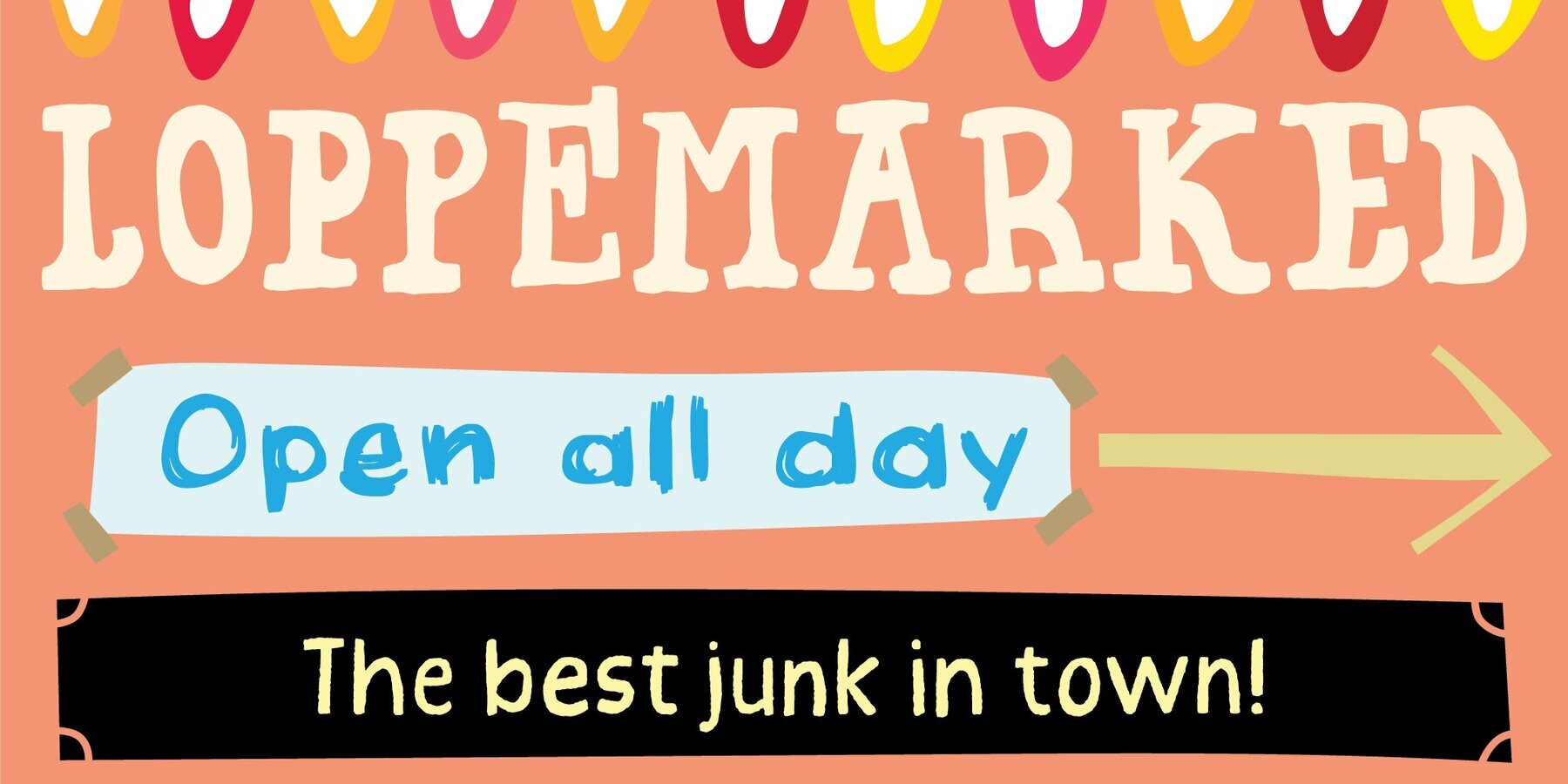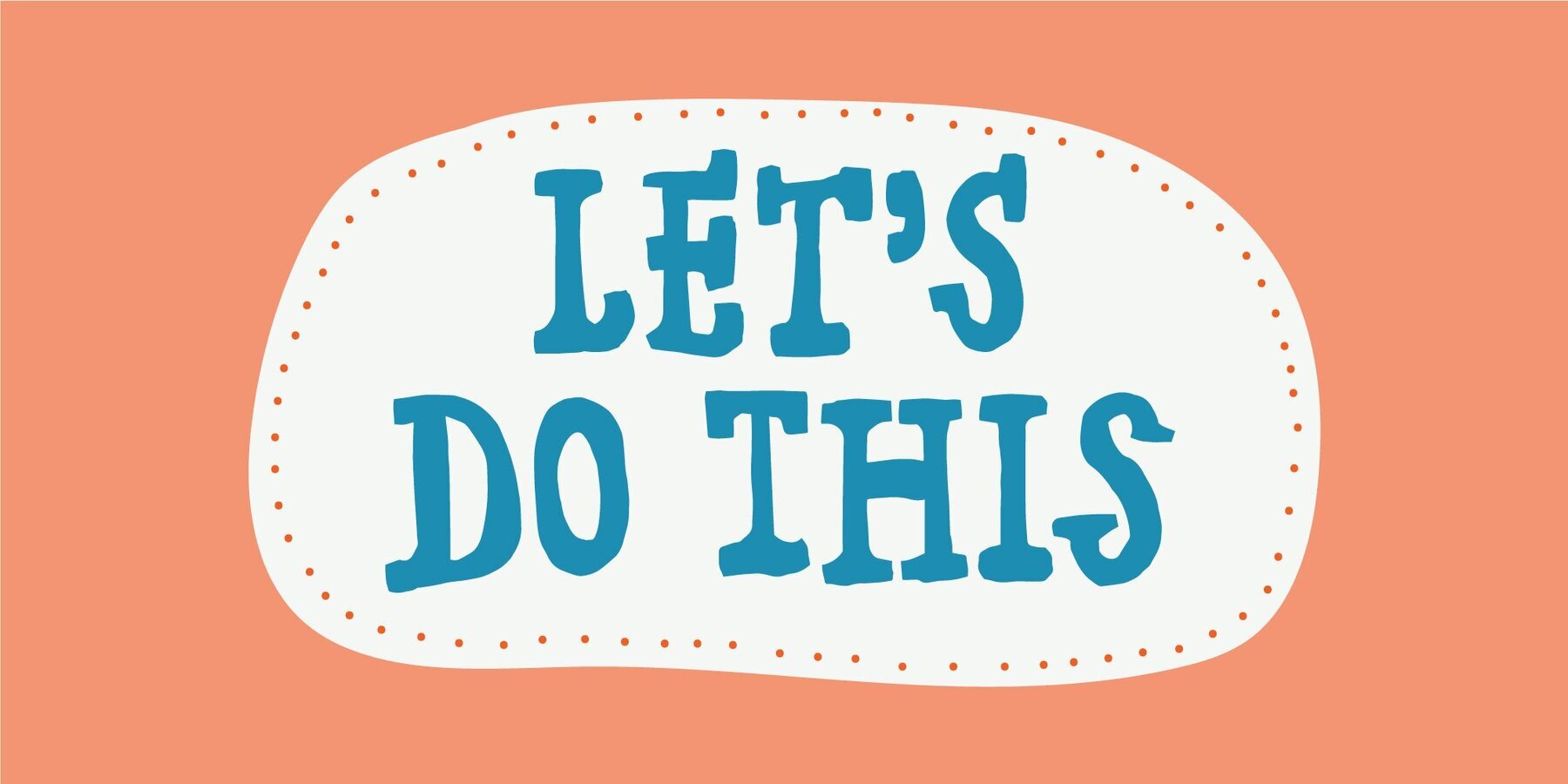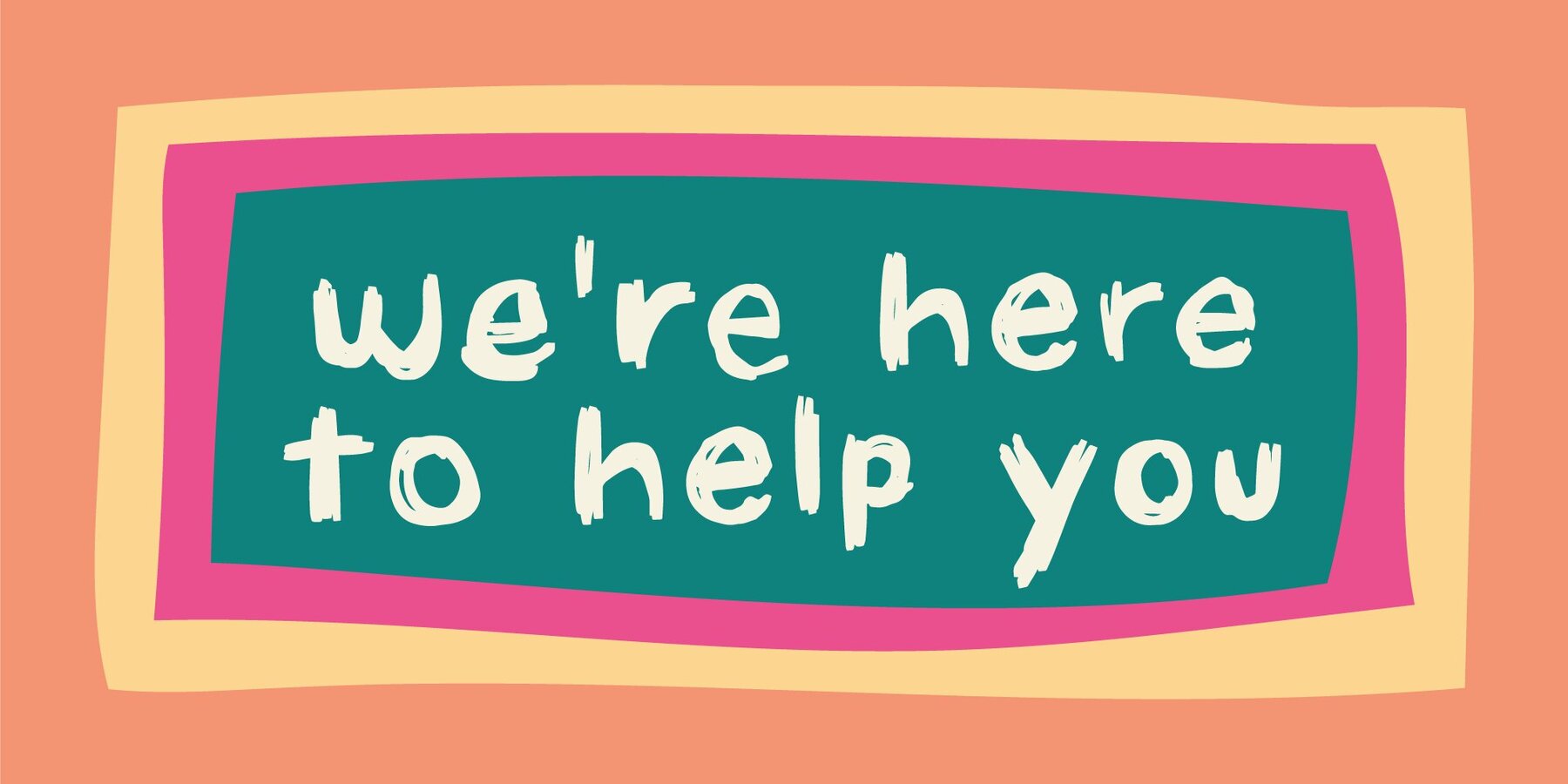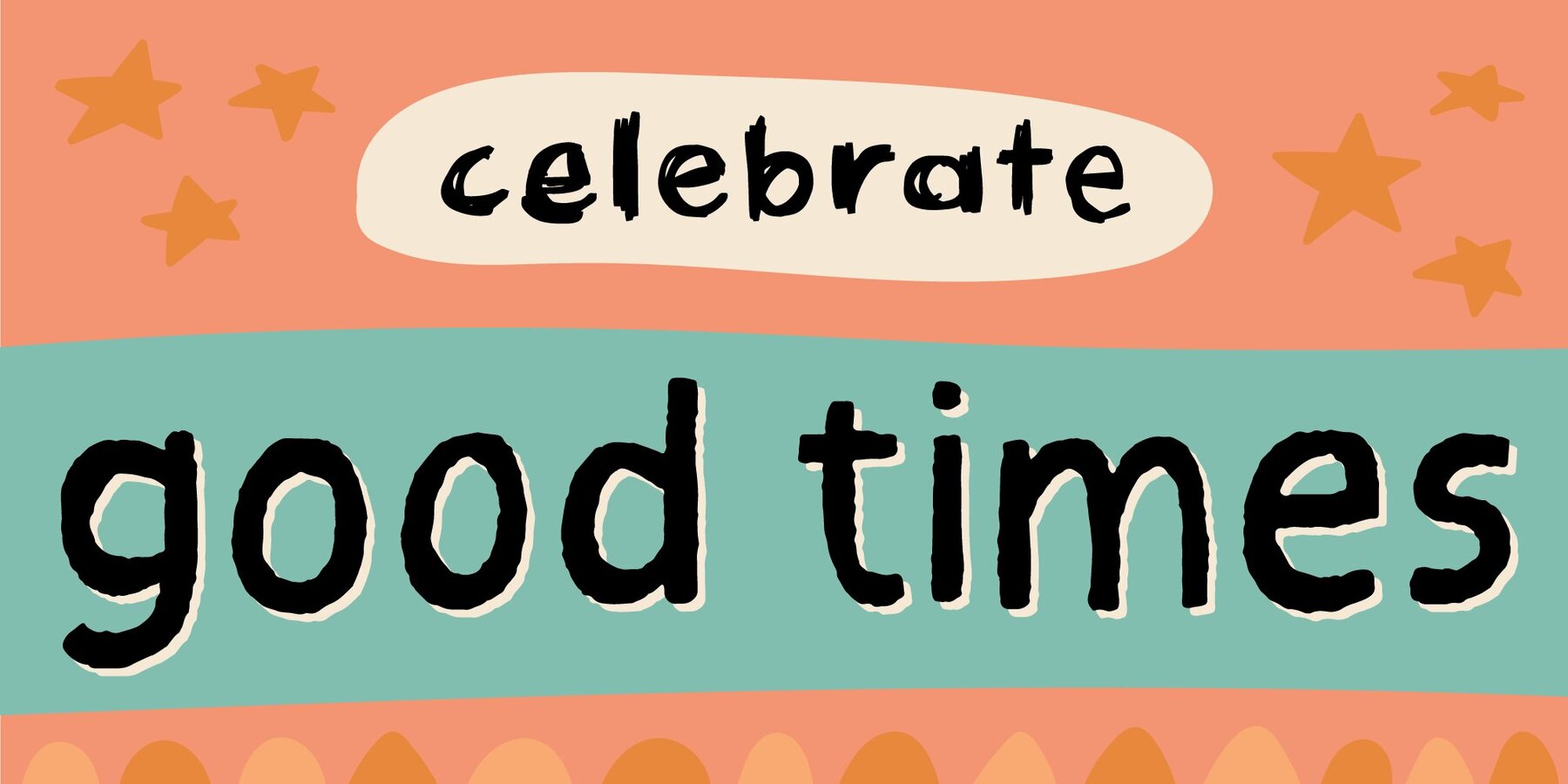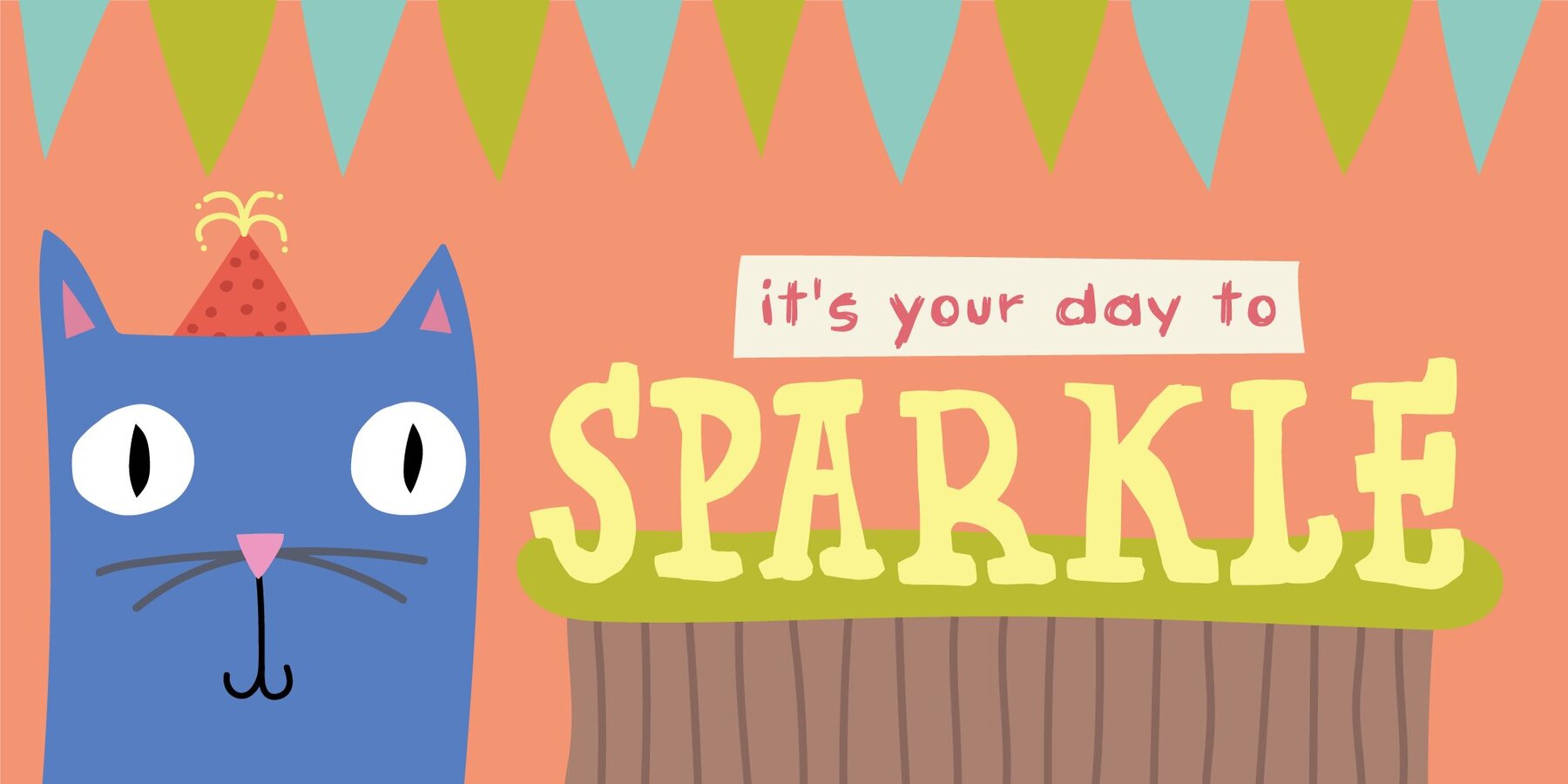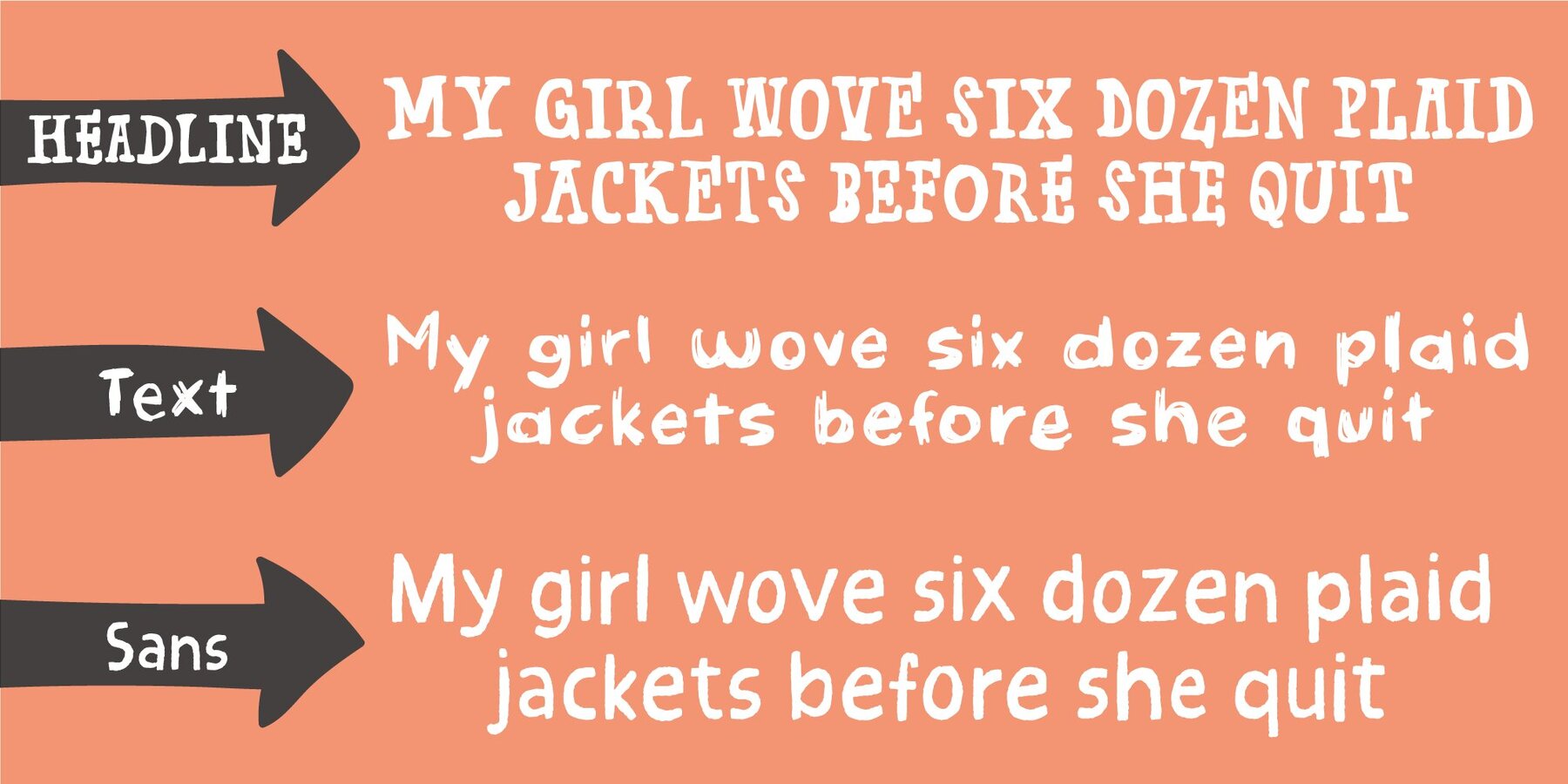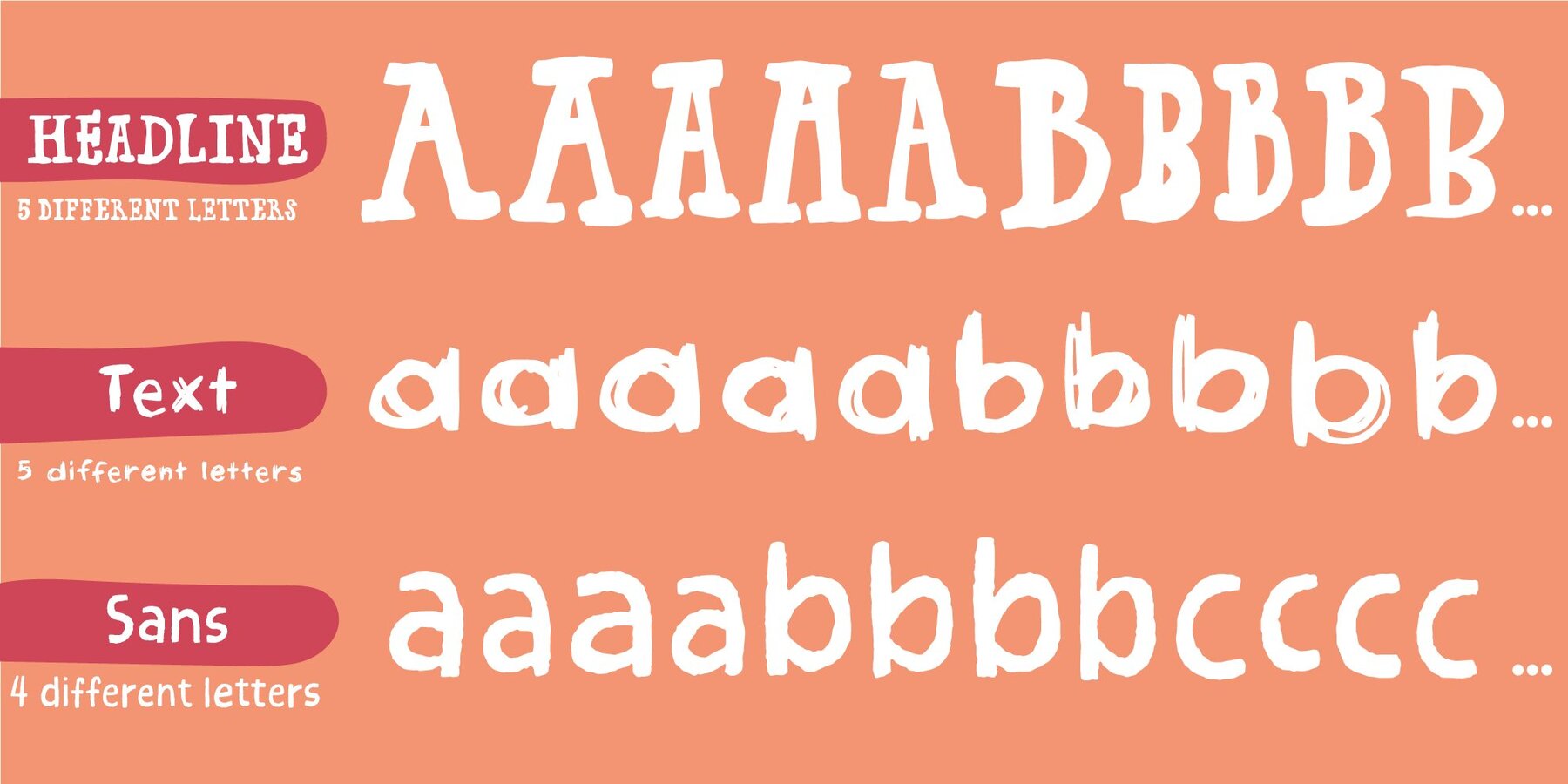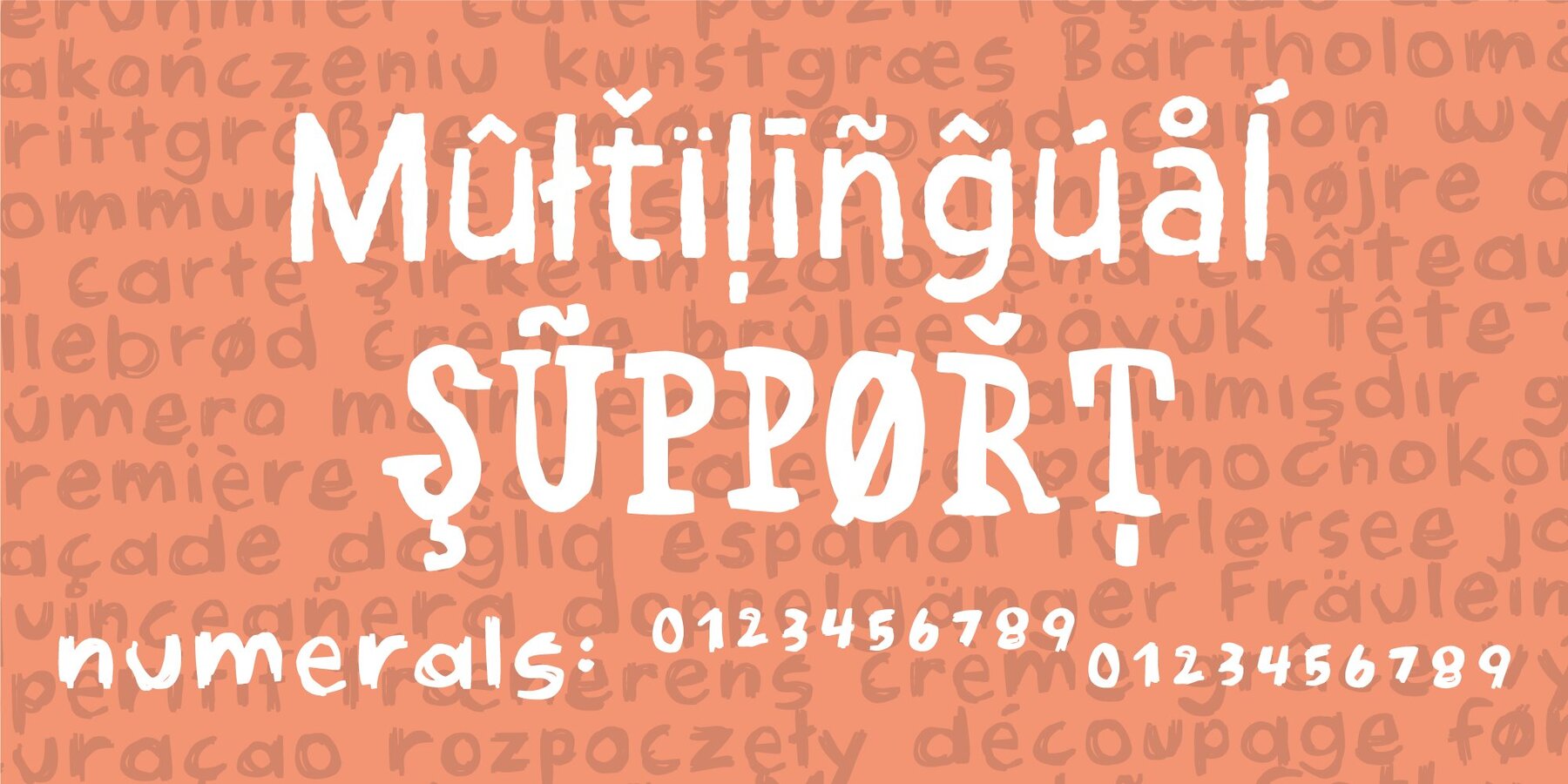
Loppemarked Font
More than just an aesthetically pleasing font, Loppemarked provides its own distinctive voice through scribbled, quick letters that pop with individuality. Its characteristic features evoke dynamism and creativity, making this font an essential resource for graphic designers and marketing firms. Effortlessly embodying distinctive details and perfect for a variety of applications, Loppemarked is more than a font, it's a tool for crafting stand-out visuals capable of leaving lasting impressions.Transcend Barriers With Loppemarked Font
Discover a font emblematic of the flea markets of Denmark, beautifully designed by PizzaDude.dk, and welcome to the world of Loppemarked. This typeface offers a unique blend of irregularity, character, and artistic flair, traits that are often hard to find in standard fonts. Loppemarked envelops the non-conformities of a flea market, bringing chunky serifs that materialize unpredictably, and intriguingly, some are absent, emulating the chaotic charm of a bustling marketplace.